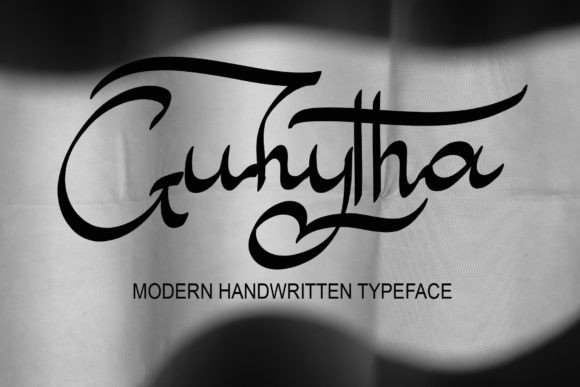
Prepare your designs for a touch of magic with Guhytha Font, a captivating and effortlessly stylish handwritten font. Whether you're crafting an eye-catching website, designing elegant wedding invitations, or creating professional business cards, Guhytha adds a touch of charm and sophistication that will turn heads.
Dive into a world of limitless creativity as you explore the endless possibilities with Guhytha. Its playful and dynamic strokes lend themselves perfectly to grabbing attention on social media posts, adding impact to product packaging, or creating unique and memorable logos. Even a simple signature takes on a life of its own with Guhytha, elevating your personal brand to new heights.
Experience the ease of use that makes Guhytha a delight to work with. This font is as versatile as your imagination, seamlessly adapting to any design vision you may have. Whether you're a seasoned design professional or just starting your creative journey, Guhytha is your perfect partner, ready to transform your ideas into stunning visual masterpieces.
Indulge in the freedom to express yourself with Guhytha. Let your creativity soar as you craft designs that resonate with your audience, leaving a lasting impression. Guhytha is more than just a font; it's a gateway to unlocking your creative potential and making your designs shine like never before.